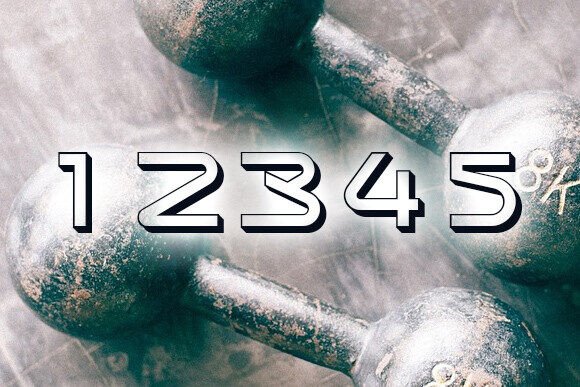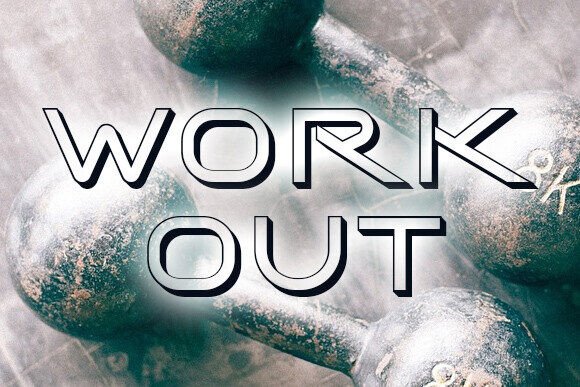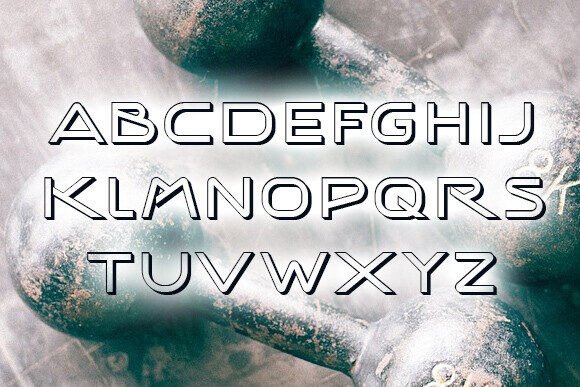
The Perfect Match for Your Fitness Projects
Remember that moment when you’re brainstorming a new project, and the perfect font just clicks into place? It’s like the puzzle pieces finally align, and your design starts to take shape. For designers, finding the right font can be a game-changer – it’s what elevates a good design to a great one.
Introducing the Fitness Font, a stylish 3D font that’s sure to add a touch of cool to any of your designs. Whether you’re creating flyers, t-shirts, or posters, this font is the perfect addition to your toolkit. With its sleek, modern design, the Fitness Font is a valuable asset for any designer looking to create eye-catching and memorable fitness-related projects.
Fitness Font Key Features
- Font Family: A unique, custom-designed font family with 8 styles, including Thin, Light, Regular, Medium, Bold, Heavy, Extra Bold, and Outline.
- Size: Each font style is available in 6 font sizes, ranging from 12px to 72px, making it suitable for various applications, from small labels to large signage.
- Resolution: Designed to be scalable, Fitness Font can be used at high resolutions (up to 300 DPI) without losing its quality and readability.
- Unique Characteristics: The font features a modern, sans-serif design with a focus on legibility and readability, making it ideal for fitness and wellness-related applications, such as gym signs, workout tracking apps, and healthy living websites.
Design Review: Fitness Font
Overall, I think Fitness Font is a decent sans-serif typeface. It has its moments, but it also falls short in some areas. Let’s dive into the details.
- The font’s clean and modern aesthetic is perfect for fitness-related applications.
- The bold weights are well-executed and add a lot of visual punch to headlines.
- The font’s x-height is relatively consistent, making it easy to read at small sizes.
- The font’s character set is somewhat limited, with a noticeable lack of accented characters.
- The font doesn’t have a strong personality or unique features that set it apart from other sans-serifs.
- The font’s italics are somewhat lacking, with a few awkward letterform decisions.
While Fitness Font has some nice qualities, it ultimately feels like a generic, uninspired typeface. With a bit more attention to detail and a more comprehensive character set, it could be a real contender in the fitness typography space. As it stands, it’s a decent choice for basic applications, but it’s not going to blow anyone away.
Getting the Most Out of Fitness Font
Experiment with different font sizes, colors, and styles to create a visually appealing design. Use the font to highlight key phrases or words in your design. Consider using the font in combination with other design elements, such as images or icons, to create a cohesive look.
The Fitness Font is commonly used in designs related to health and wellness, such as fitness plans, workout routines, and healthy eating guides. It can also be used in designs related to motivation and inspiration, such as motivational quotes or goal-setting templates.